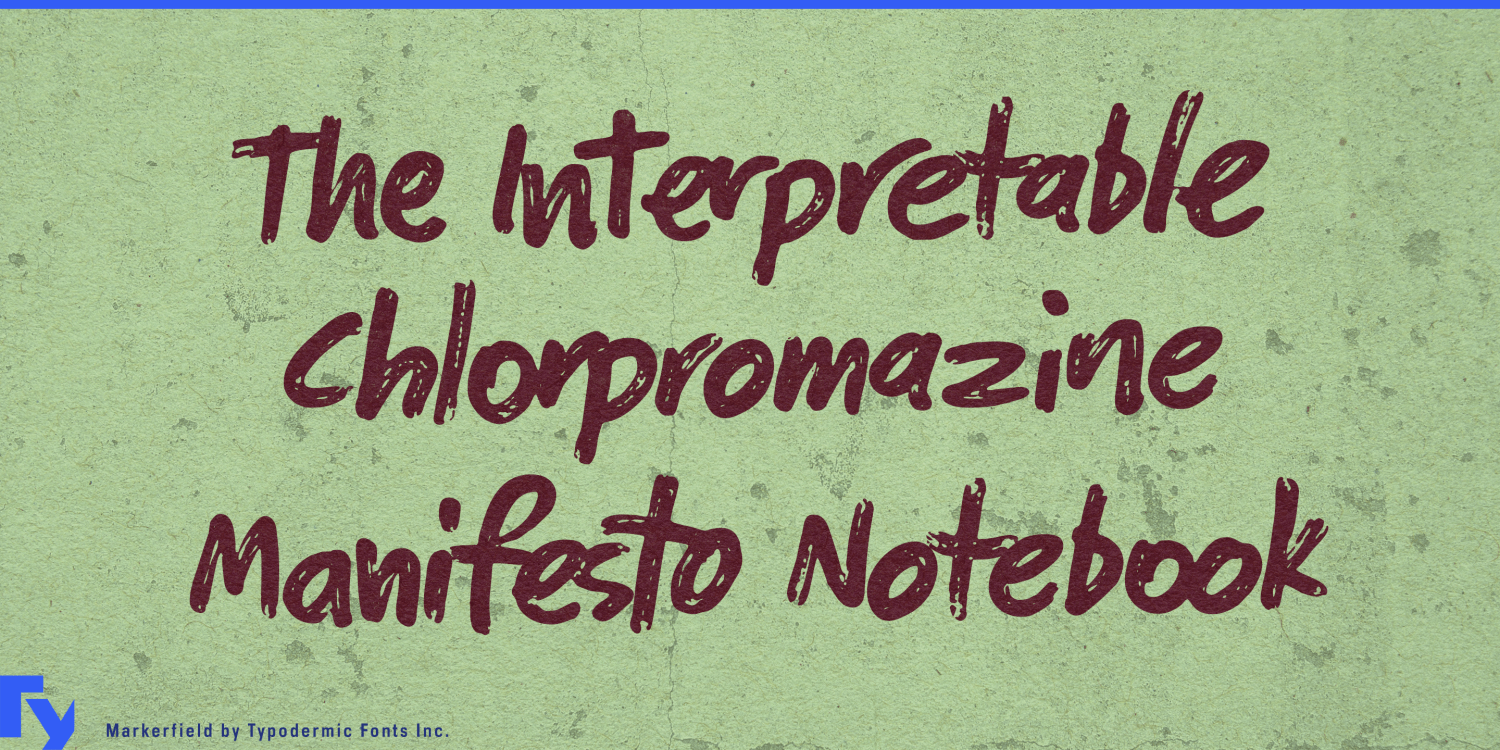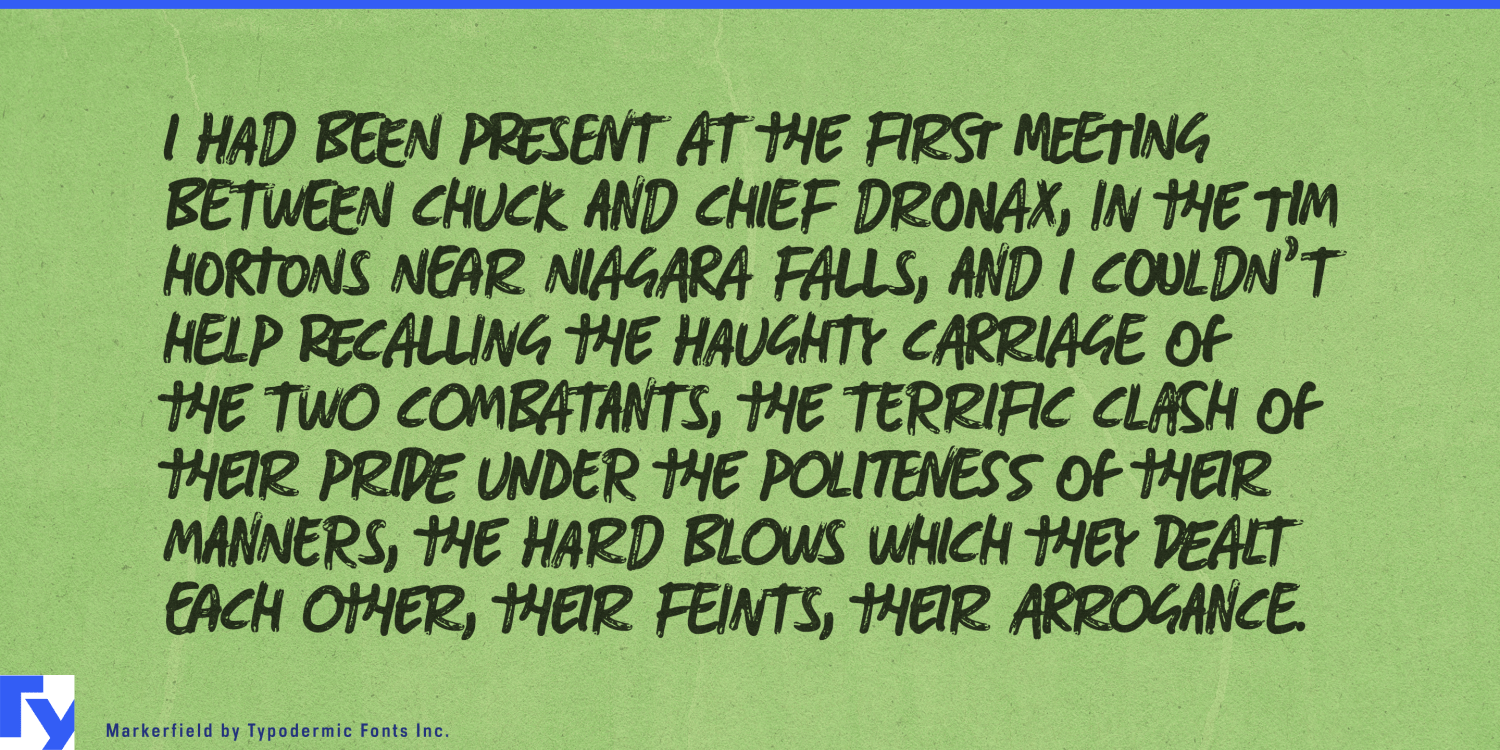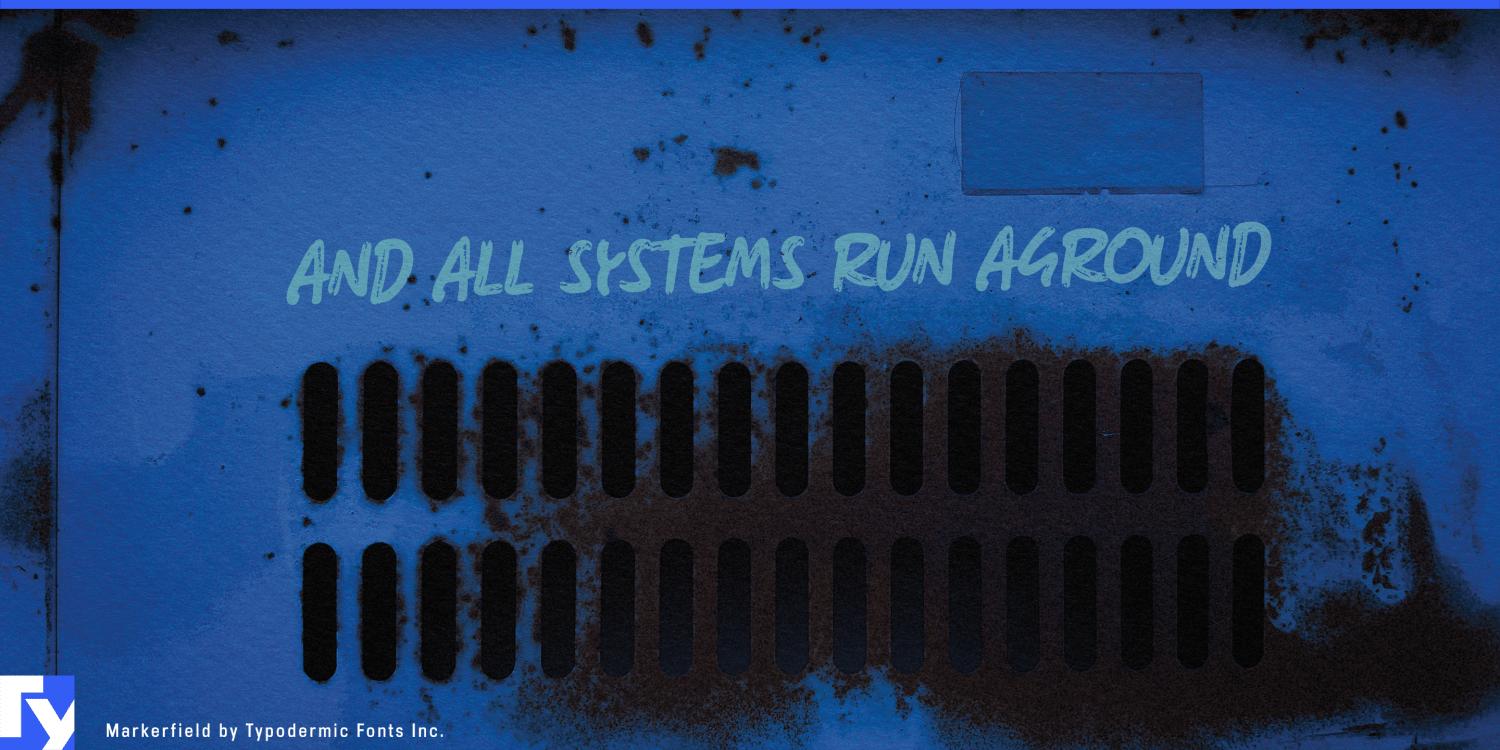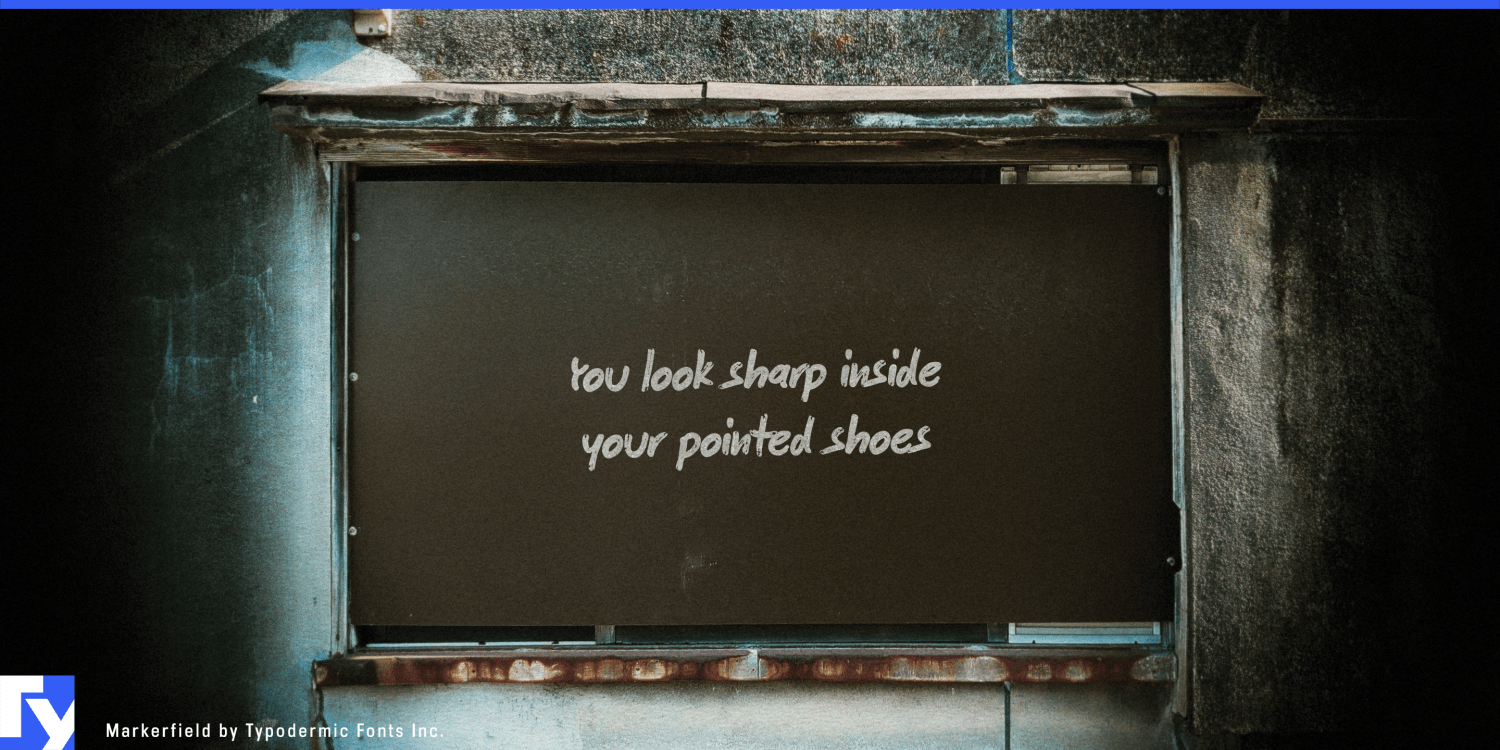
Markerfield
Font Family by Typodermic
Polished layouts sometimes need a note from a person. A formal caption can feel too integrated into the design; a script font often looks deliberately decorative; drawing every comment by hand becomes tedious once annotations need to be revised, repeated, or translated. Markerfield supplies that human markup layer in editable type.
At small sizes, its dry-marker texture takes on the look of thin felt-tip pen. Set slightly off-axis, it becomes especially convincing as a note added after the main layout was finished. Short comments such as “Start here,” “Move this,” “Check clearance,” or “Option B” can sit beside arrows, circles, underlines, screenshots, and renderings without becoming another formal level in the typographic hierarchy.
That makes Markerfield particularly useful for design review. Architecture presentations, product-design boards, engineering proposals, packaging concepts, campaign comps, UX reviews, and internal creative presentations can use it for revisions, alternatives, material changes, unresolved details, and review notes while the underlying project keeps its normal typography.
Presentation annotation offers a similar role. Management consultancies, strategy teams, engineering firms, research groups, and corporate planning departments can add margin notes, chart observations, circled figures, caveats, and key takeaways without forcing every intervention into another box or callout style.
Software and digital-product communication provide another strong setting. SaaS launches, onboarding material, product tours, customer academies, cybersecurity explainers, release announcements, and AI-product demonstrations often show interface screenshots covered with arrows and short notes. Markerfield can supply comments such as “Start here,” “New workflow,” or “Generated automatically” while the interface itself retains its normal typeface.
Engineering teams can use the same approach over CAD screenshots, component renderings, factory layouts, installation proposals, site photographs, and equipment images. Teachers and tutors can apply it to corrections, worked examples, margin comments, diagram labels, and explanatory arrows.
Markerfield works best when it behaves like markup rather than carefully composed typography: relatively small, loosely placed, occasionally angled, and positioned just outside the underlying grid. It gives polished digital work a human intervention layer while keeping every note editable and repeatable.